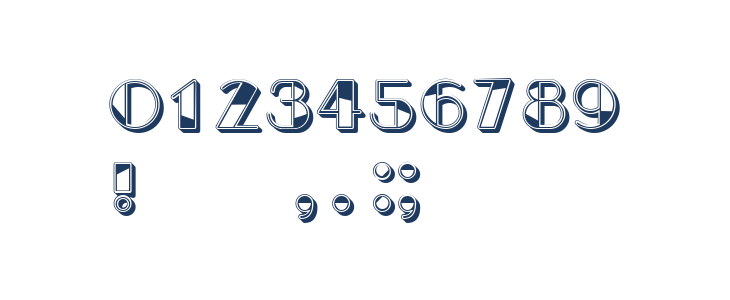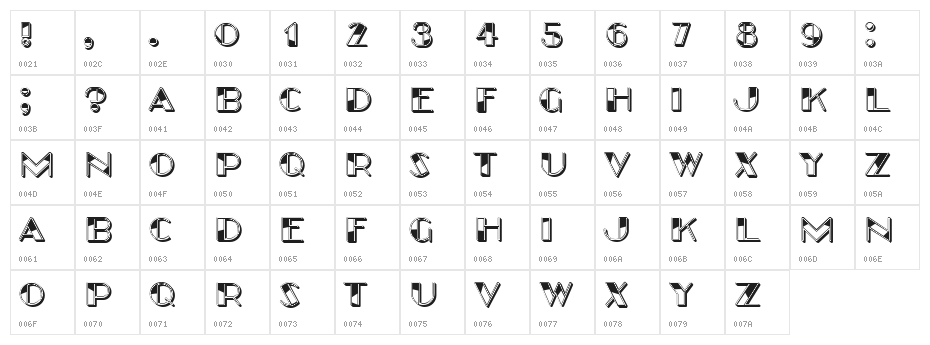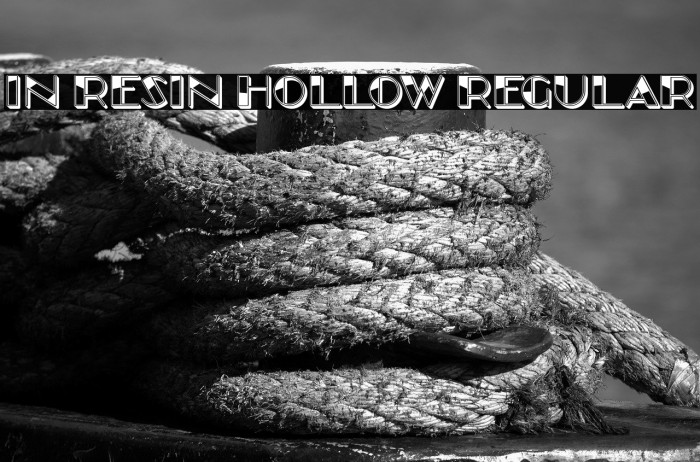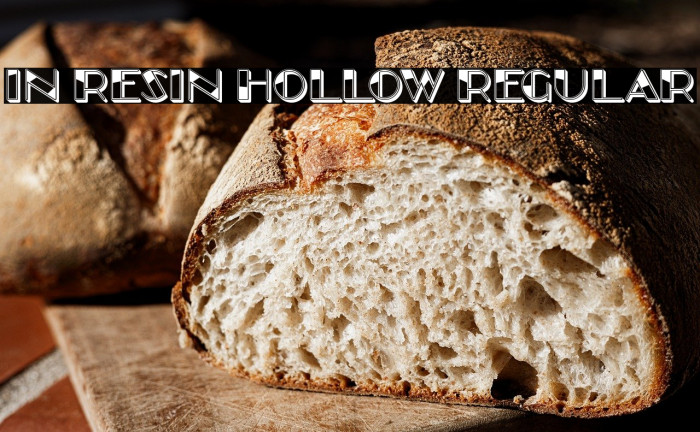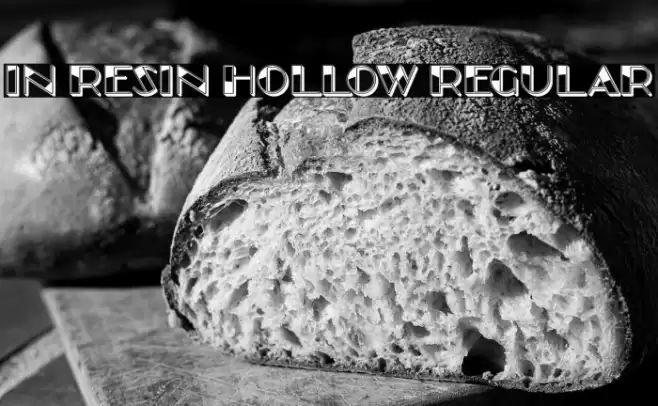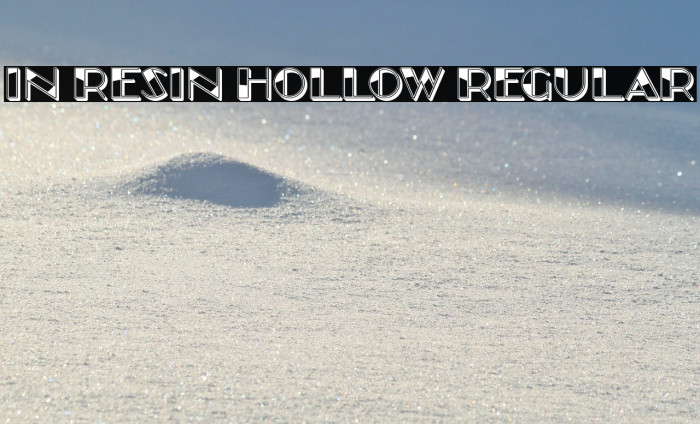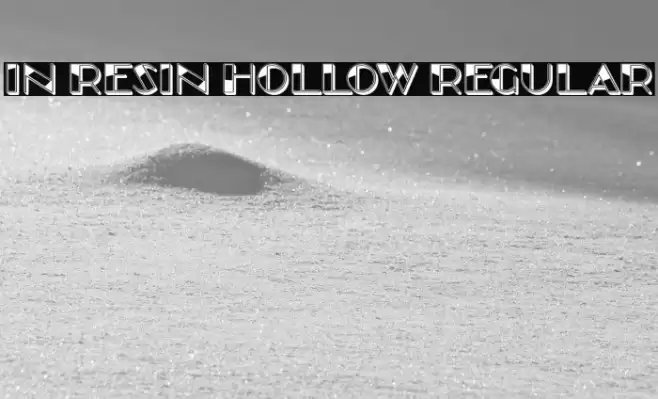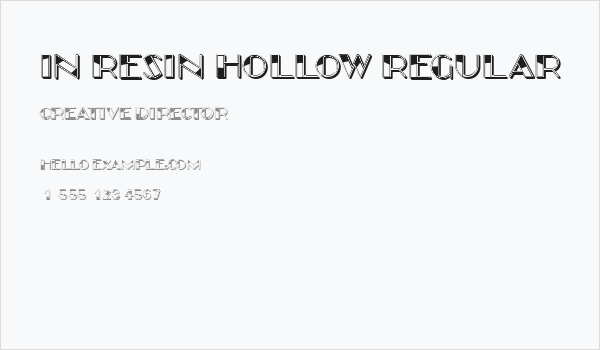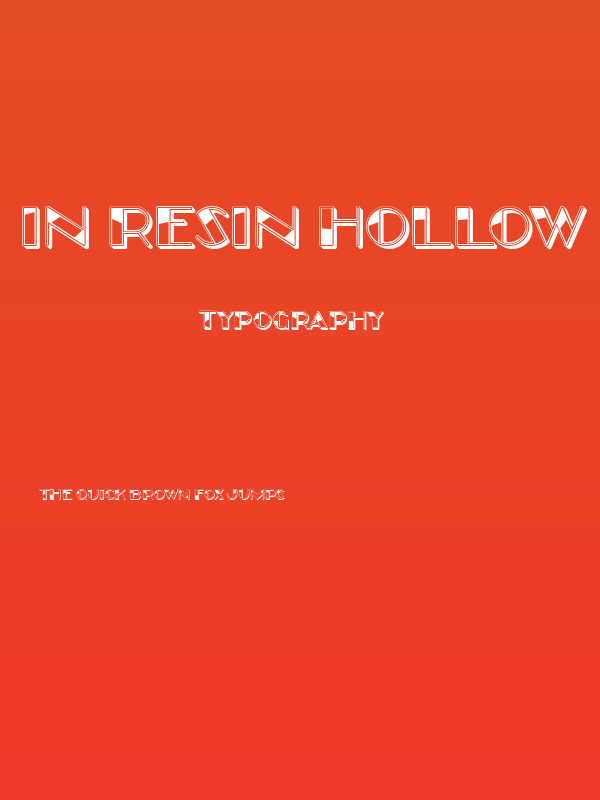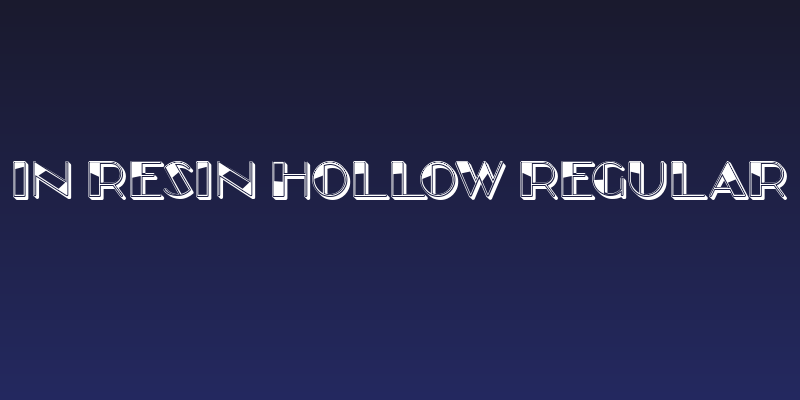
In Resin Hollow Regular Font
In Resin Hollow Regular Description
This font features a unique hollow design with a three-dimensional effect, giving each character a sense of depth and dimension. The letters are bold and geometric, with clean lines and sharp angles that create a modern and futuristic appearance. The hollow aspect of the font allows for creative use of background colors and textures to show through, making it versatile for various design applications. The numbers and special characters maintain the same stylistic approach, ensuring consistency across all elements. This font is ideal for projects that require a standout, eye-catching typeface.
| Proposed Projects | Ideal for posters, logos, headlines, and any design requiring a modern, eye-catching typeface. |